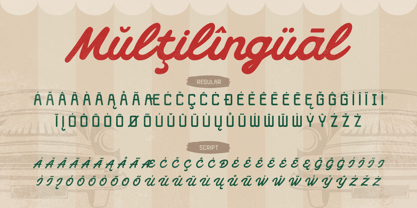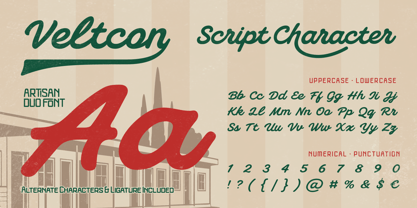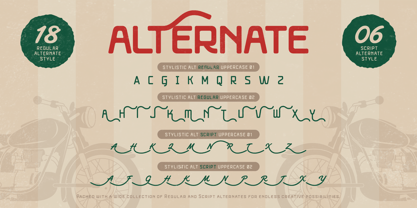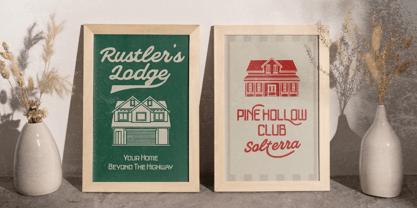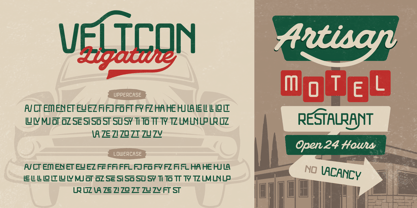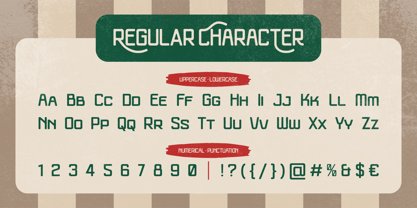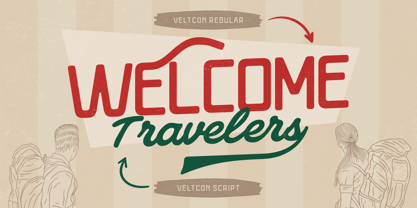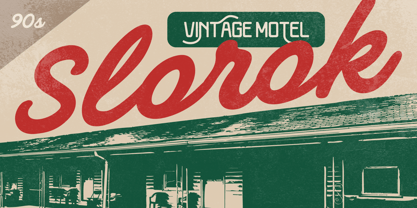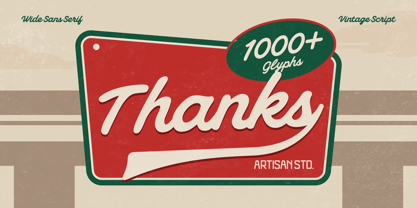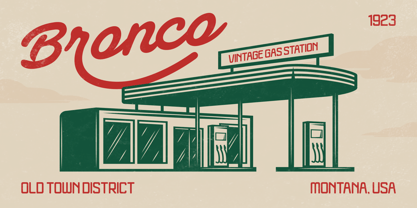
Veltcon
The Veltcon Font Family was designed by Meidy Meichico and published by Artisan Themes. Veltcon contains 2 styles and family package options. More about this family
Veltcon is a beautifully crafted classic vintage duo font that blends a clean wide sans serif with a smooth retro script. Inspired by old motel signage, vintage gas stations, and timeless Americana aesthetics, this font brings a warm nostalgic feel into modern design.
The sans serif style is bold, structured, and easy to read—perfect for strong headlines—while the script adds a natural handwritten touch that feels authentic and elegant. Together, they create a perfect balance between classic charm and vintage personality.
Designed with attention to detail, Veltcon comes with alternate characters and ligatures, allowing you to create more natural, stylish, and unique lettering compositions effortlessly.
Perfect for: Vintage branding & logo design, Retro signage & poster, Classic packaging, Cafe, motel, and travel theme design, Editorial & magazine headlines, Apparel & merchandise, Social media vintage content
Features: A - Z set (Uppercase & Lowercase), Number, Punctuation, Alternates, Ligatures, Multilingual